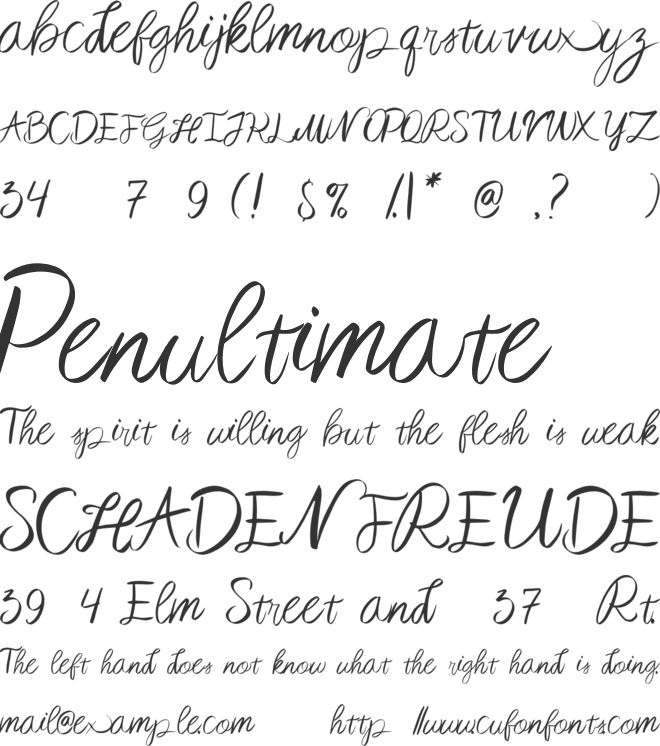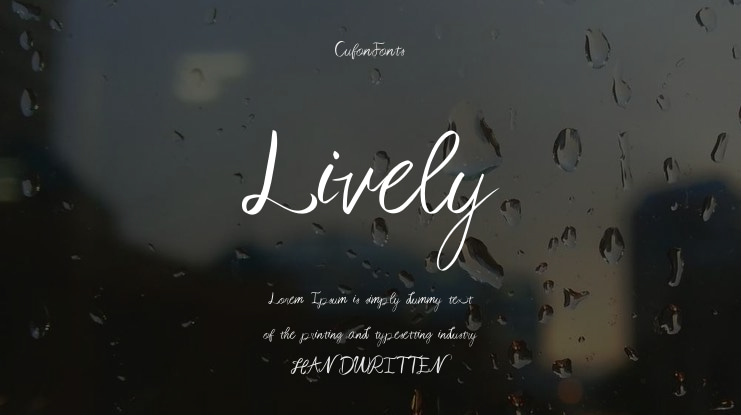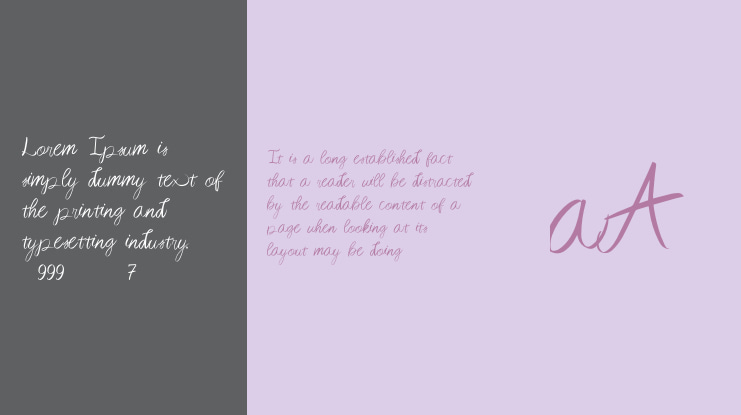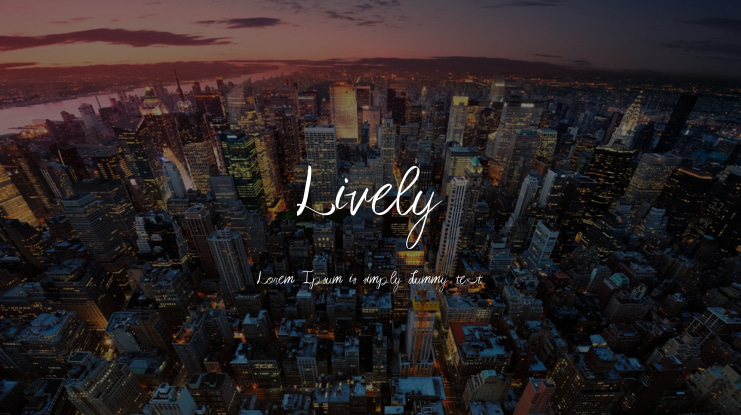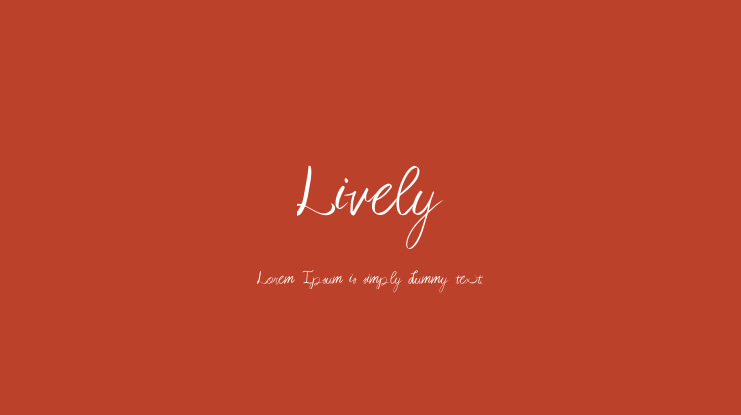
Allow me to introduce "Lively," a script font that effortlessly blends elegance with a friendly demeanor. Lively is designed to bring a touch of sophistication to your projects while maintaining an approachable and warm feel. Here are the key features that set Lively apart:
1. **Elegance in Every Curve:** Lively's script style is crafted with precision, emphasizing graceful and flowing curves. The letters exude an inherent elegance, making it a perfect choice for projects that demand a refined touch.
2. **Warm and Friendly Vibes:** What sets Lively apart is its ability to balance elegance with a friendly personality. The font carries an inviting charm that resonates well in various contexts, creating a harmonious blend of sophistication and approachability.
3. **Versatility for Various Projects:** Whether you're working on wedding invitations, branding, greeting cards, or social media graphics, Lively adapts seamlessly. Its versatile nature makes it suitable for a wide range of design applications.
4. **Distinctive Character Set:** Lively boasts a distinctive character set that includes alternate glyphs and ligatures, providing you with creative freedom and additional styling options to make your designs truly unique.
5. **Perfect for Expressive Typography:** If you aim to convey a message with expressive and stylish typography, Lively is your ideal companion. Let your words come to life with the dynamic and vibrant energy of this font.
Embrace the elegance, add a touch of friendliness, and elevate your designs with Lively. It's not just a font; it's a personality woven into each letter.